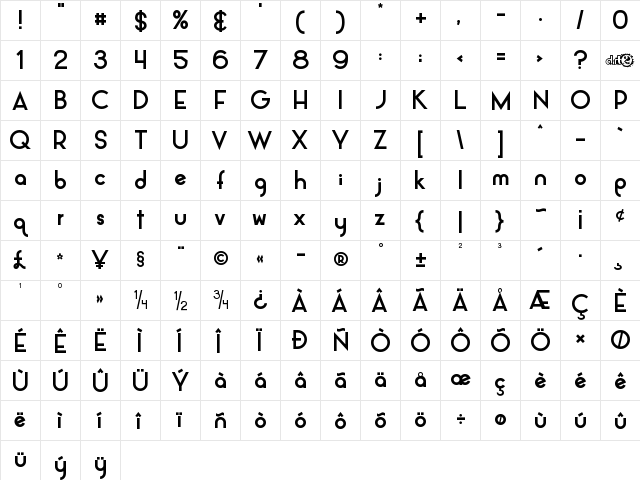
Alpaca Scarlett Demo Regular
Design Context for Alpaca Scarlett Demo Typeface
Alpaca Scarlett Demo takes a measured approach to typography — its balanced proportions and neutral character make it a reliable workhorse for both digital and print work.